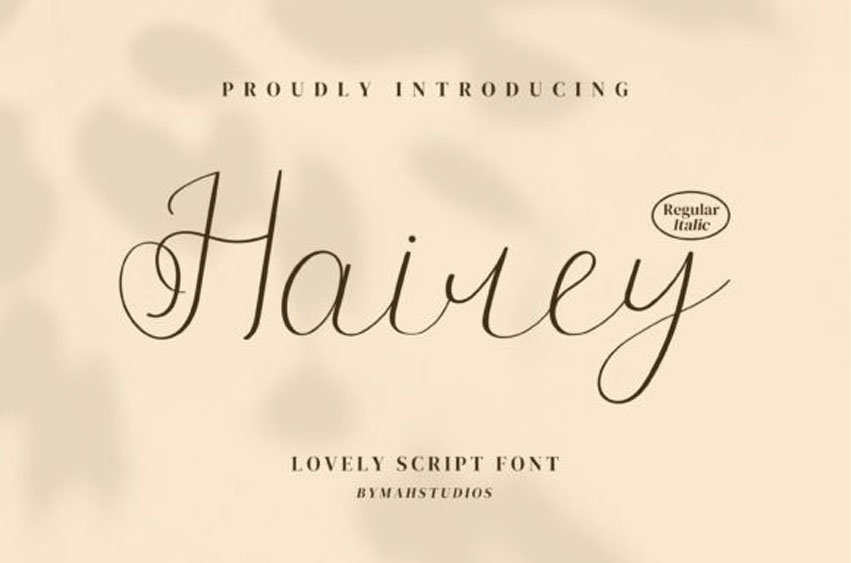
Hairey Font
Hairey Font is a modern, retro, and luxurious font that brings romance to the center of attention through the harmonious outline of the words.
The font suggests its use for creating invitations, event posters, advertisements, and anything that requires a fancy art form. This font is PUA encoded which means you can access all glyphs and swashes with ease!